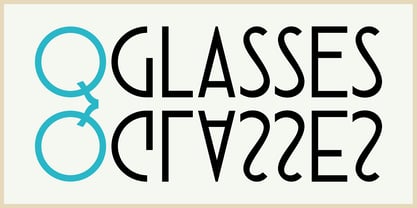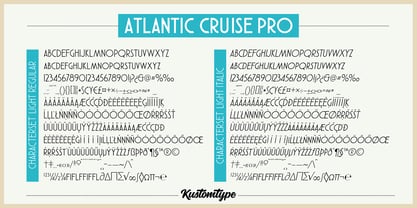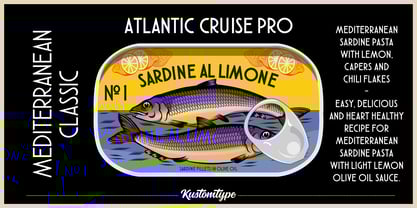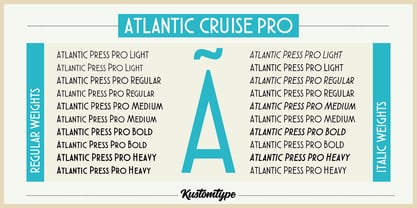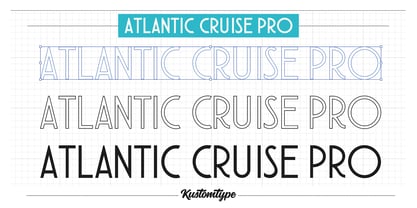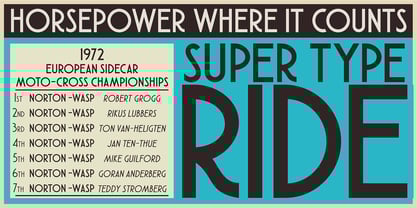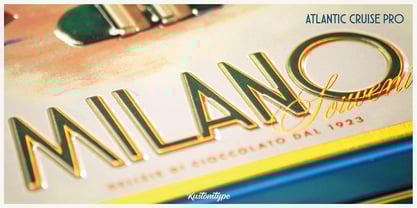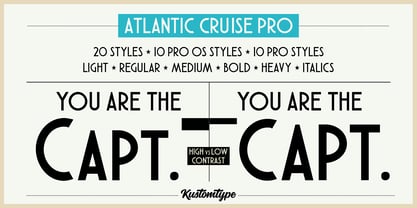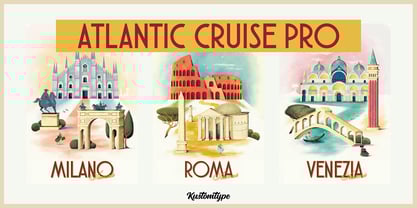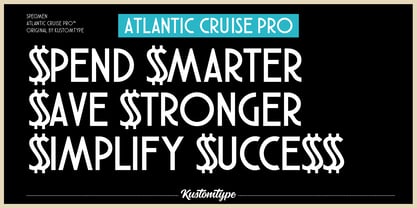
Atlantic Cruise Pro
The Atlantic Cruise Pro Font Family was designed by Coert De Decker and published by Kustomtype. Atlantic Cruise Pro contains 20 styles and family package options.
Atlantic Cruise Pro - Vintage Voyage, Modern Edge
Ahoy, design trailblazers! Ready to captain projects that turn heads and drop jaws? Meet Atlantic Cruise Pro - where 1950s cruise-ship glam gets a 21st-century remix. This ain’t just a font; it’s your secret weapon for designs that ooze nostalgia but scream now.
Why This Font’s a First-Class Ticket:
20 WEIGHTS = UNSTOPPABLE VERSATILITY
Glide from feather-light elegance to heavyweight swagger (with italic flair for days). Perfect for logos, packaging, editorials, merch, and vibes that linger.
CRISP, CLEAN, NO FUSS
Optical magic sharpens every curve and line. Legibility so smooth, it’s like butter on a typewriter.
SPEAKS GLOBAL
Multilingual chops? Check. Connect with audiences from Brooklyn to Bali.
Design Flex Alert:
This font’s the Frank Sinatra of typography — cool, timeless, and always in the spotlight. Posters? Chef’s kiss. Branding? Instant icon status. Social scroll-stoppers? Cue the love.
Drop Anchor on Mediocrity
Whether you’re crafting wanderlust-worthy travel ads or curating a retro-modern magazine, Atlantic Cruise Pro is your go-to co-pilot.